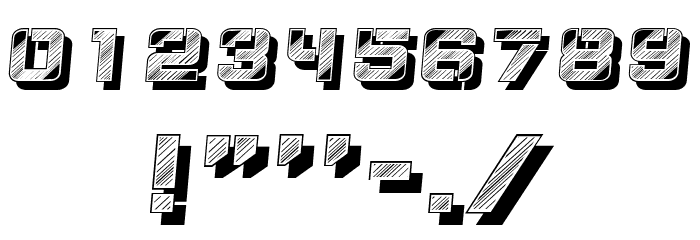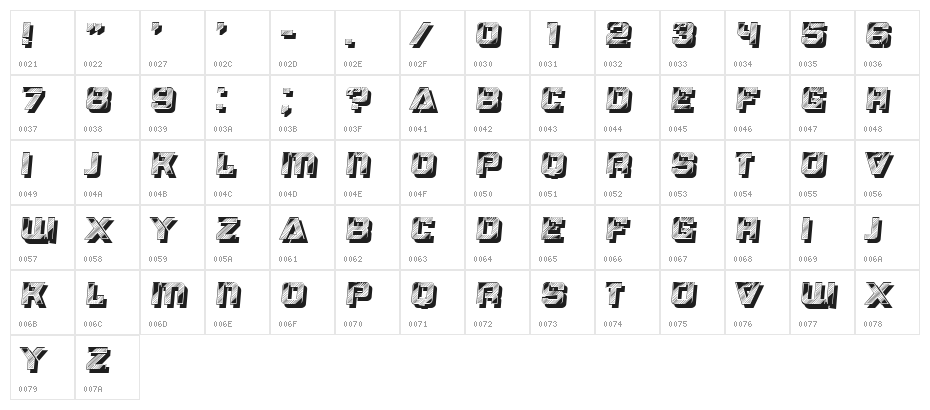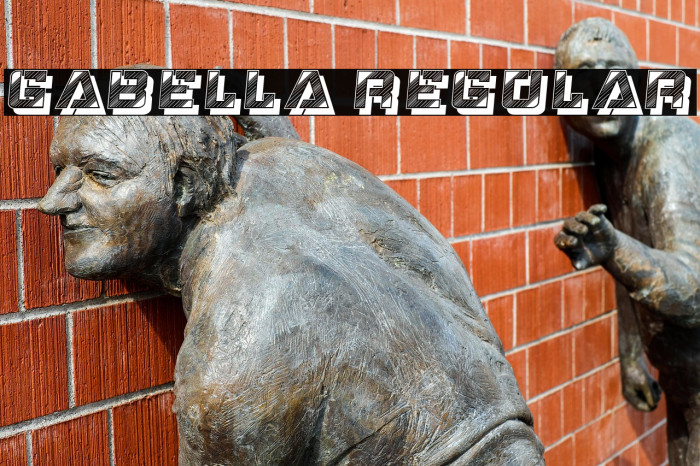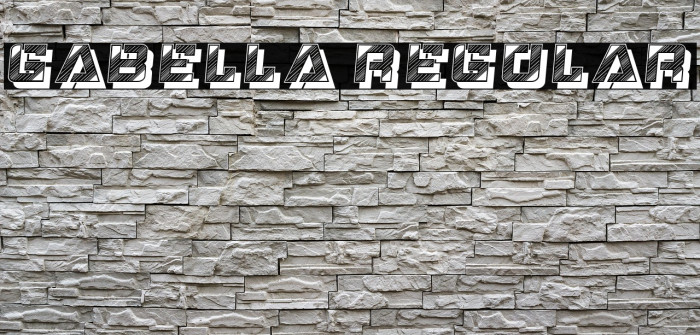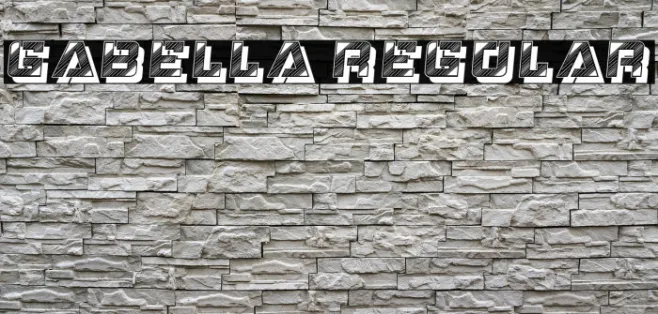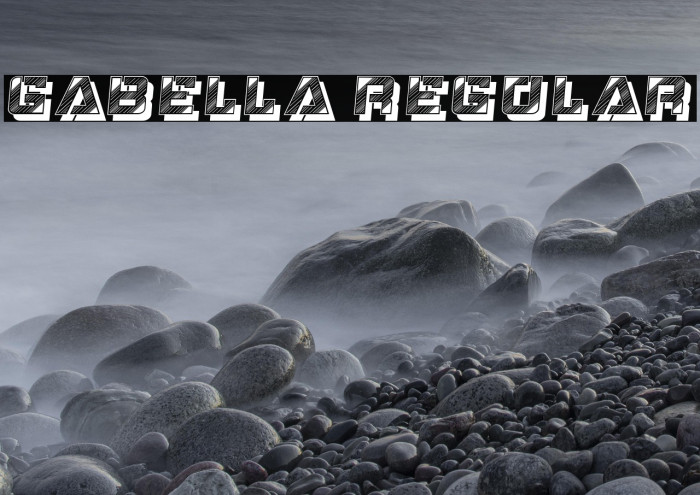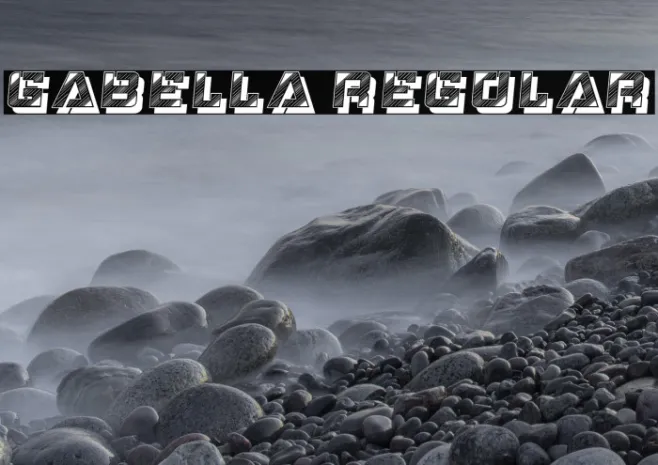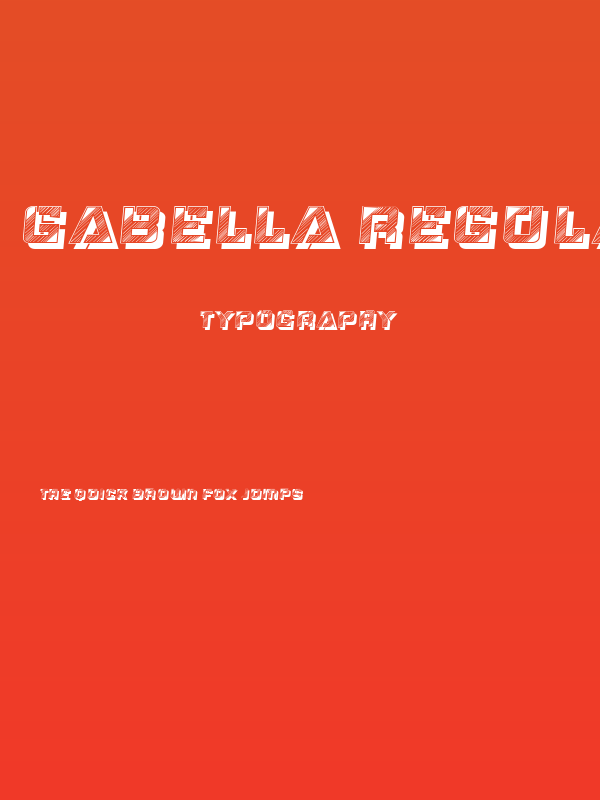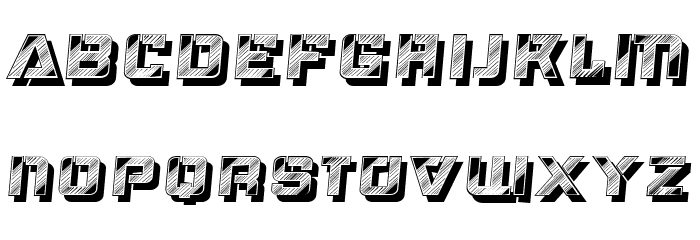
Gabella Regular Font
Gabella Regular Description
This font features a bold, three-dimensional style with a unique striped pattern within each character. The letters are uppercase and have a strong, blocky appearance with a shadow effect that gives them depth. The design is highly decorative, making it stand out with its intricate detailing and bold presence. The numbers and special characters follow the same design principles, ensuring consistency across all glyphs. This font is ideal for creating eye-catching headlines or titles that require a strong visual impact.
| Proposed Projects | Ideal for poster designs, event flyers, video game titles, and any project needing a bold, eye-catching typeface. |